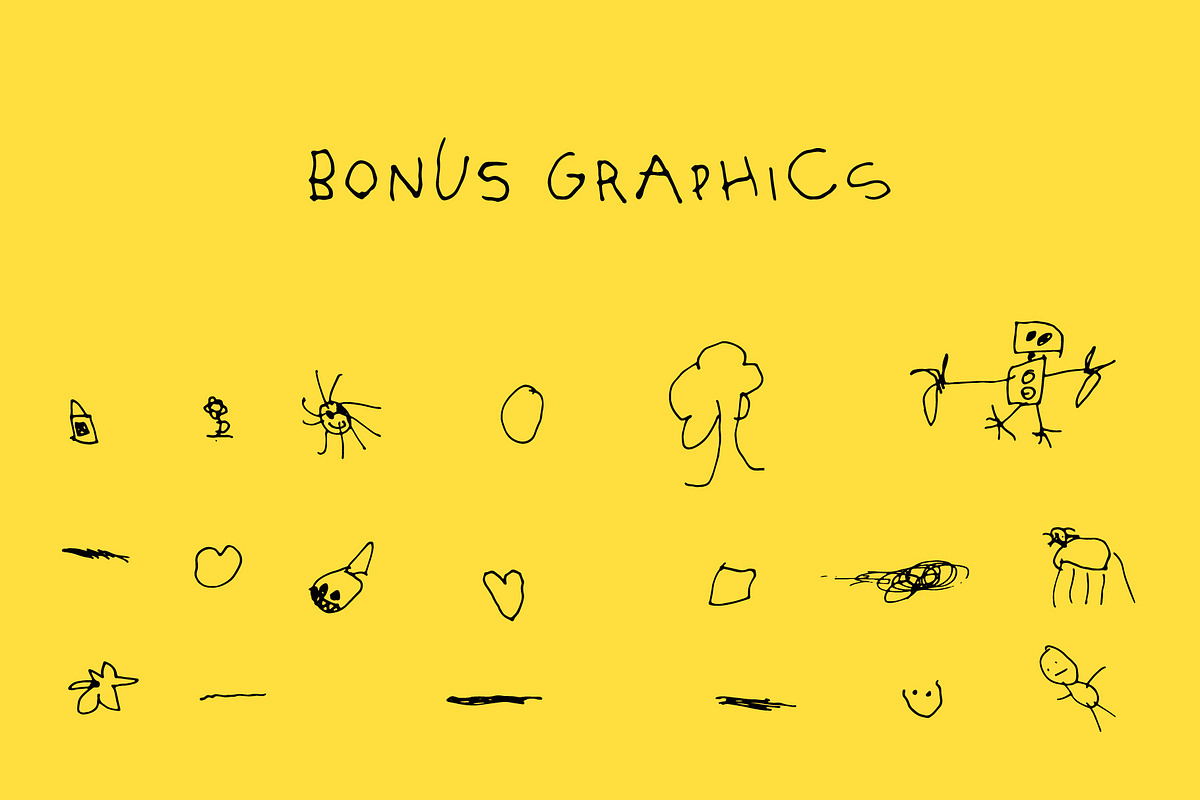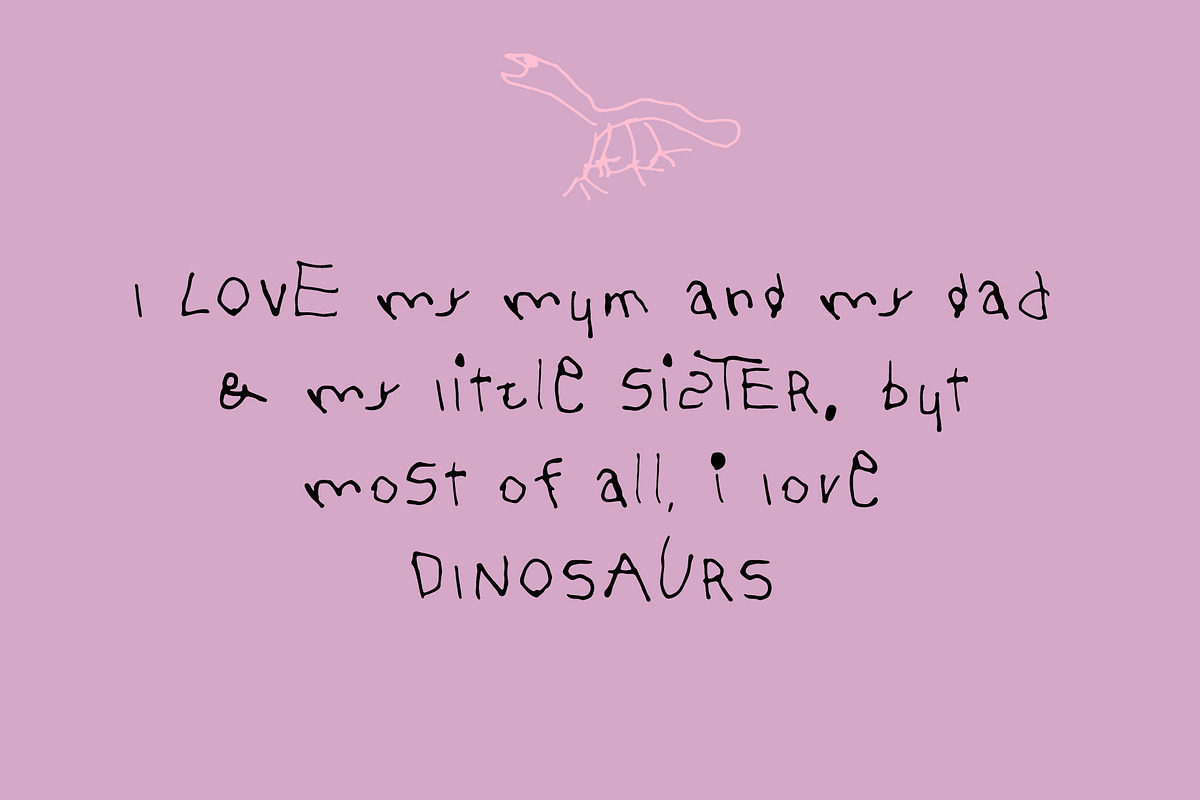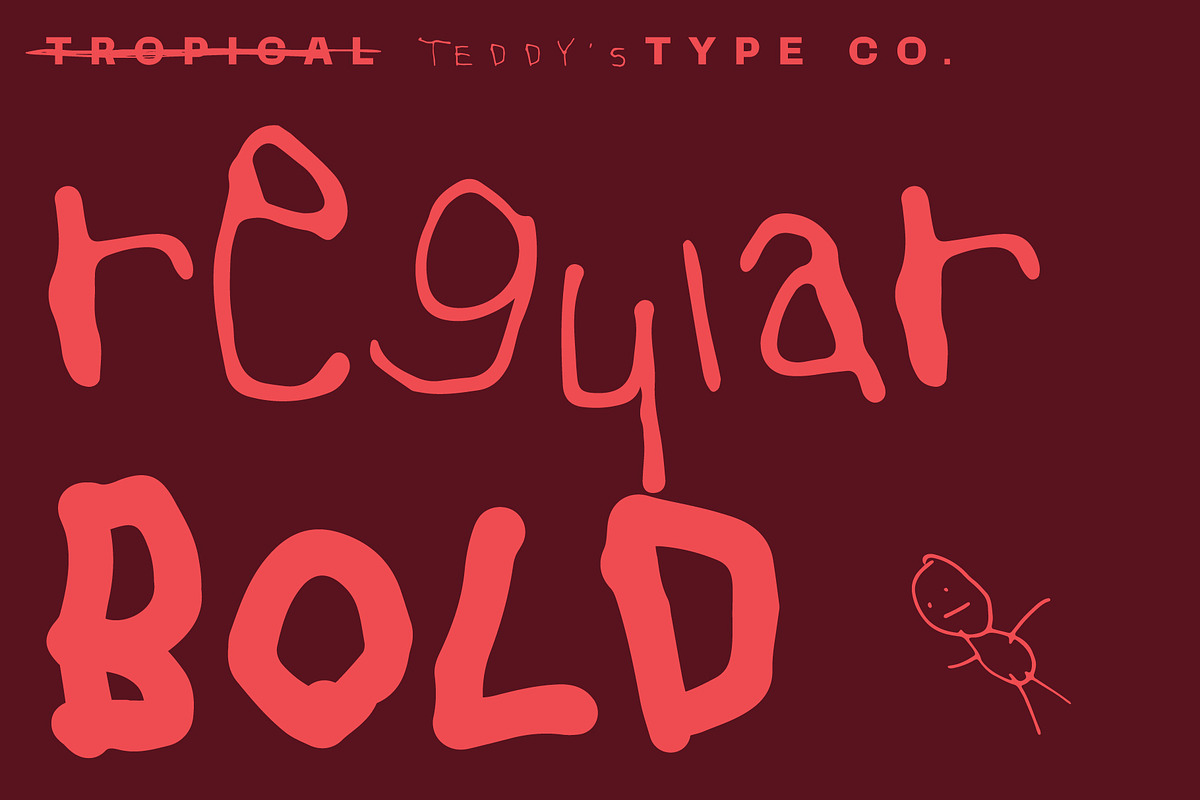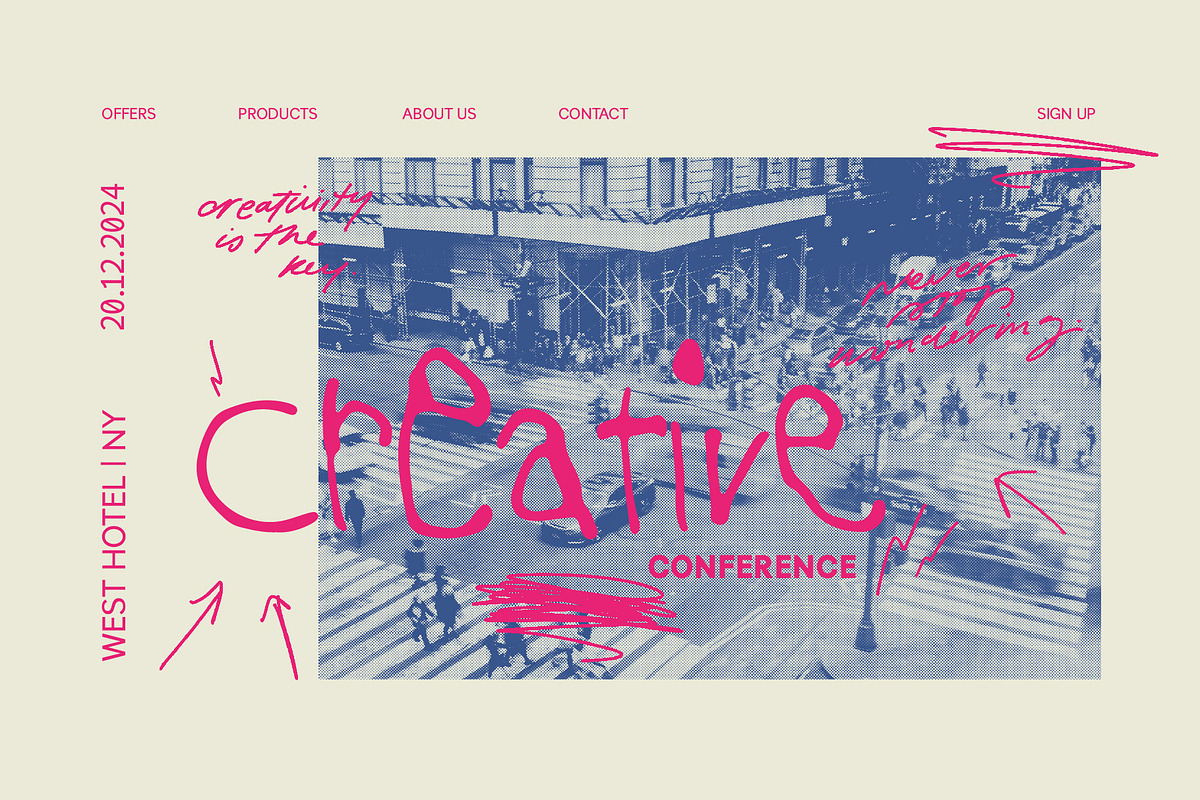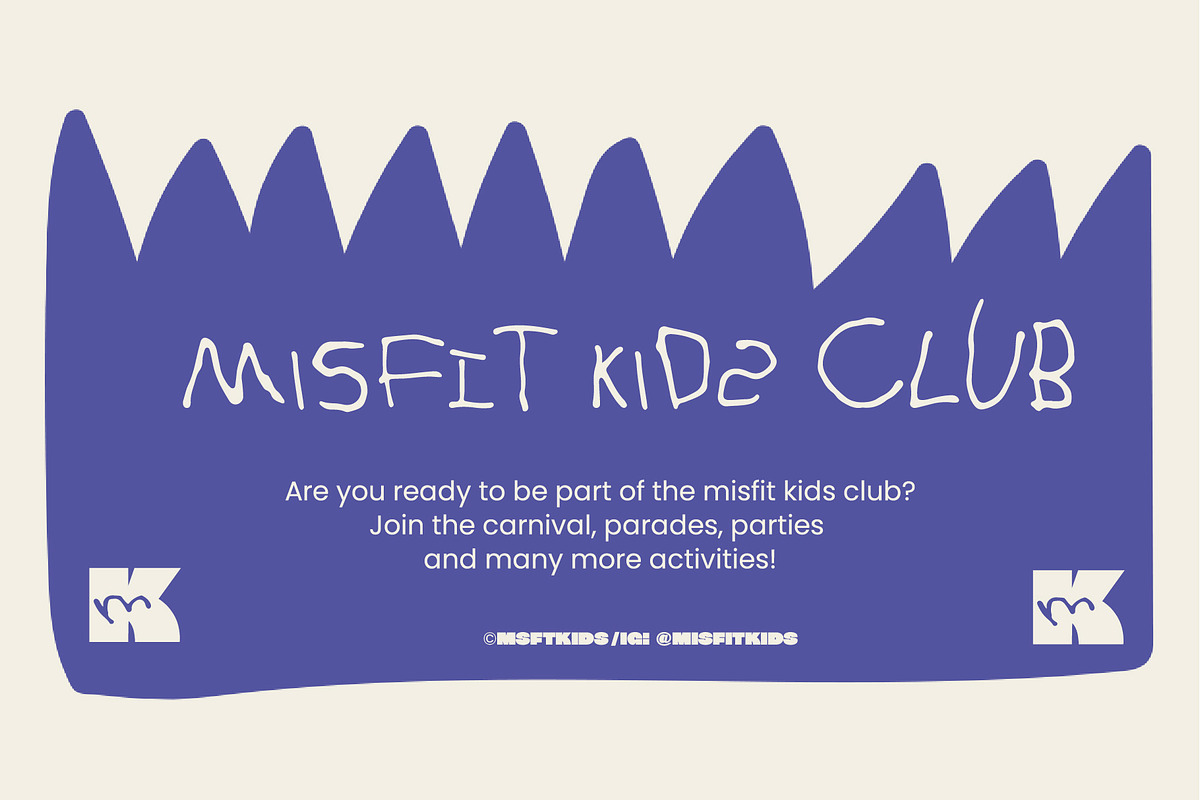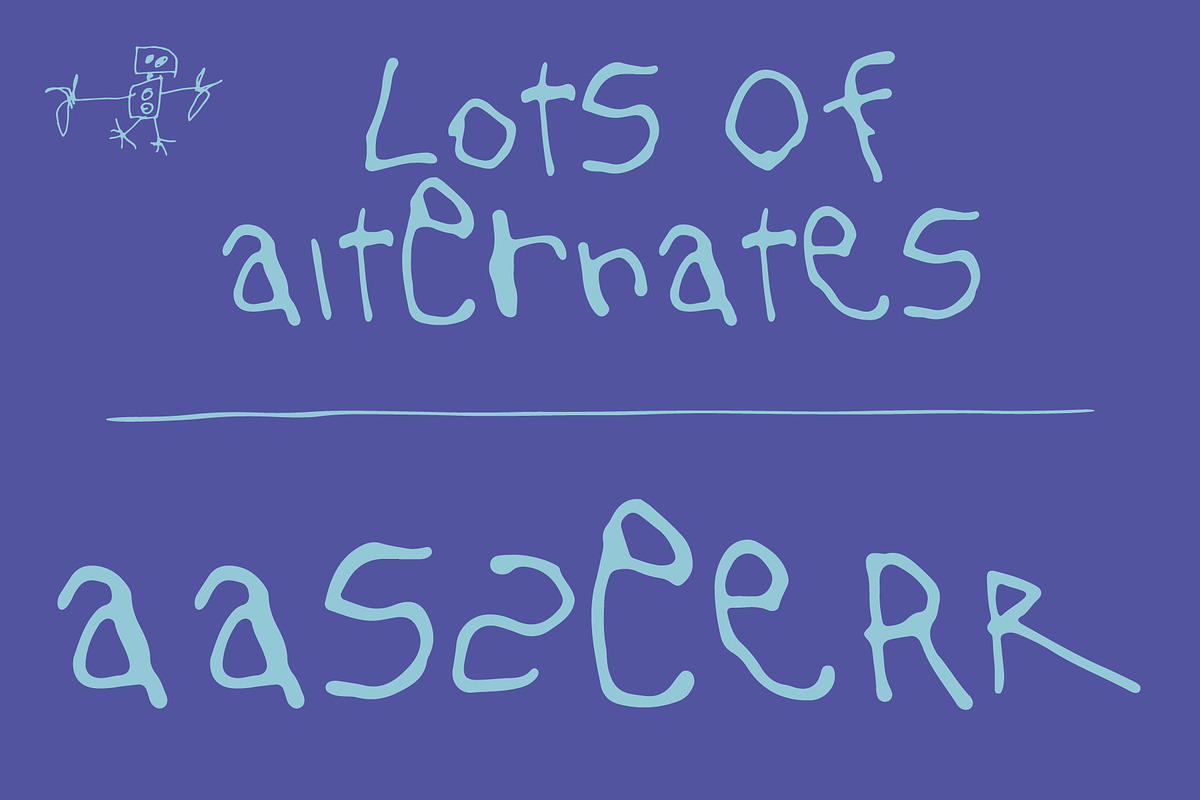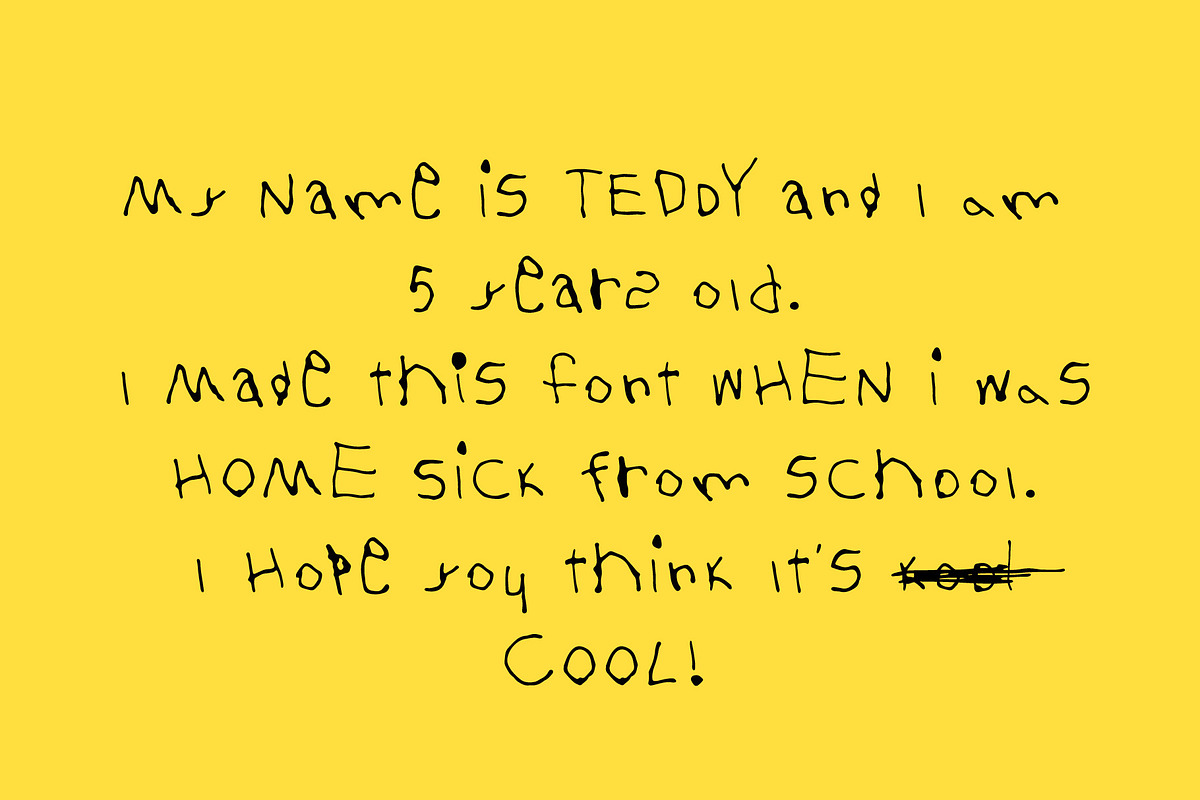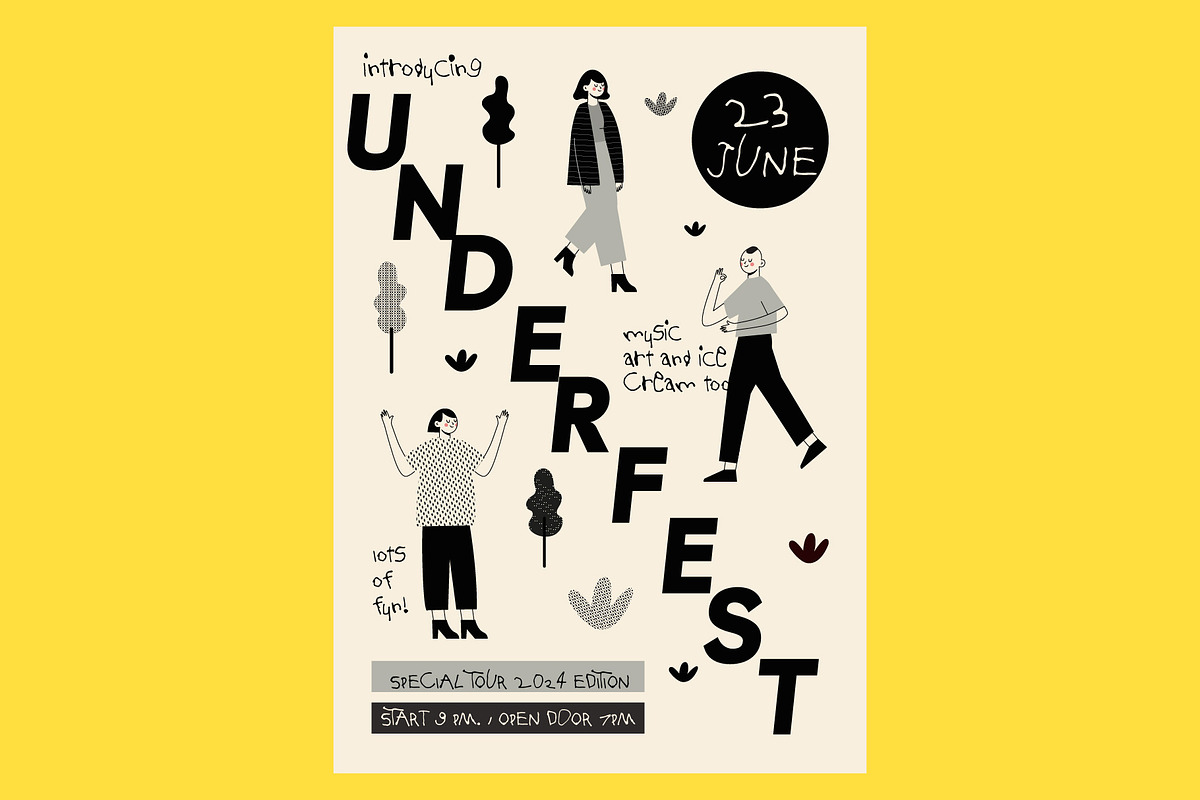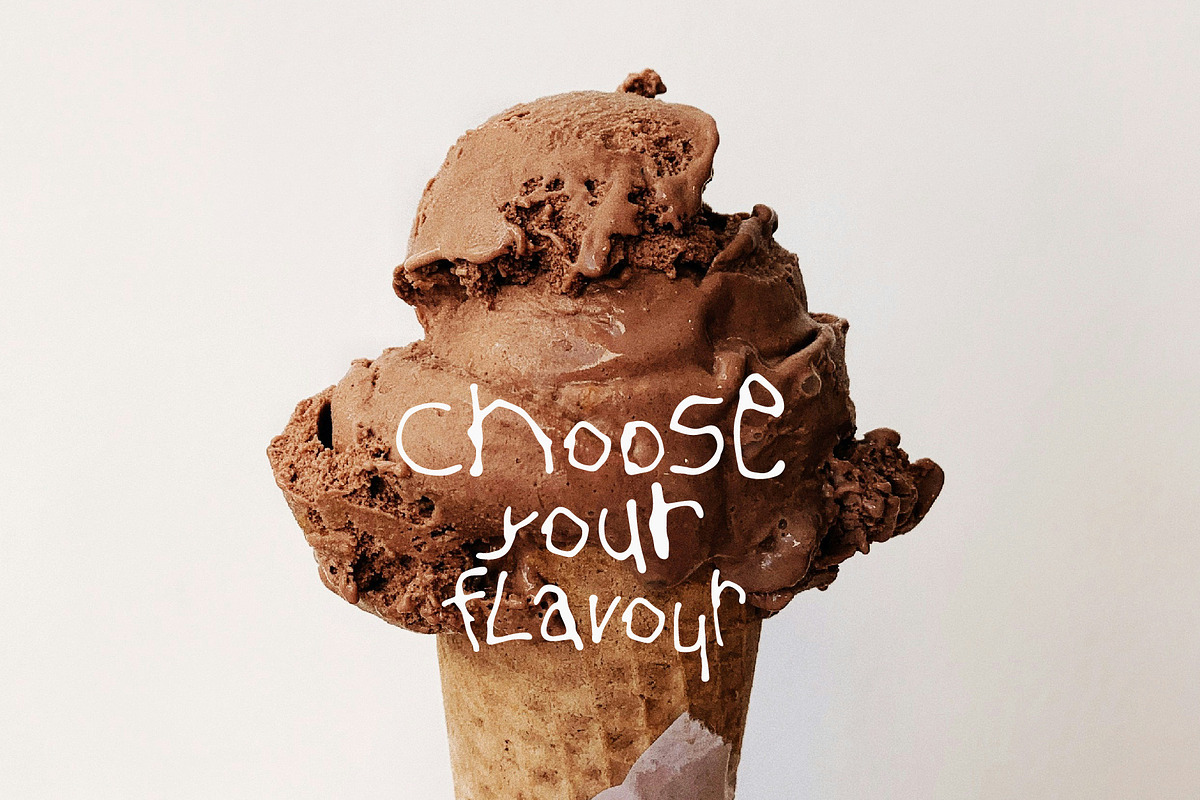
Sick Day - Kids Font
This Font is made by Tropical Type's youngest employee - Teddy. He is five years old and is learning to write and spell in kindergarten. All proceeds will go towards his dream of buying a metal detector to search for pirate treasure. This font comes with alternates for every letter and number, for a real childish effect. If you want a kid's look, then make it authentic with Sick-Day.